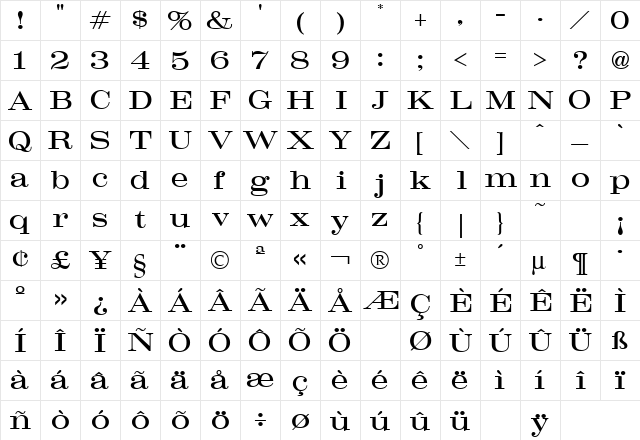
Craw Regular Font Preview
Craw Regular
Craw Regular Font Details
Design Context for Craw Typeface
Craw is a composed and adaptable typeface that performs quietly and consistently across a wide range of design contexts.
Pro Tip: Use Craw in both headline and body roles to test its range before committing to a single application.